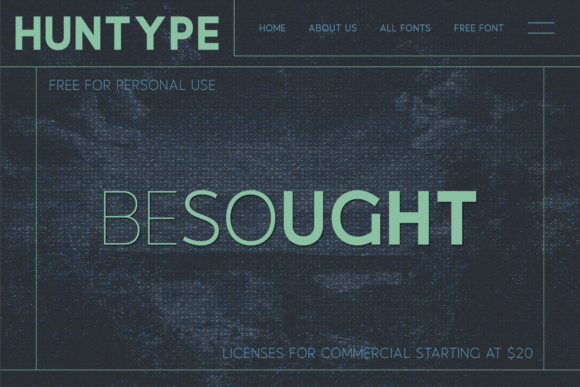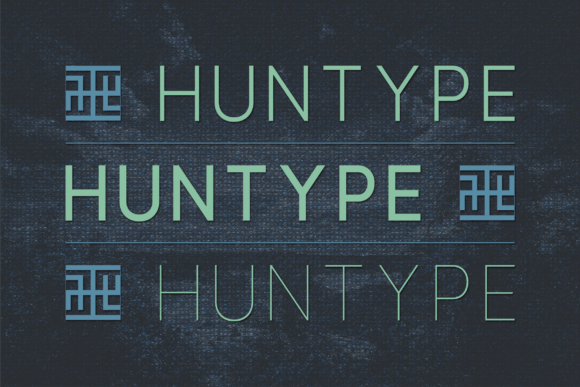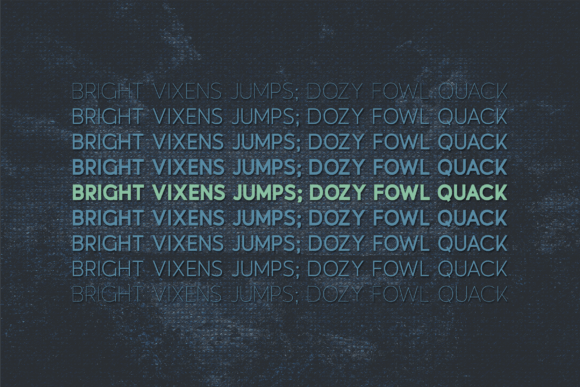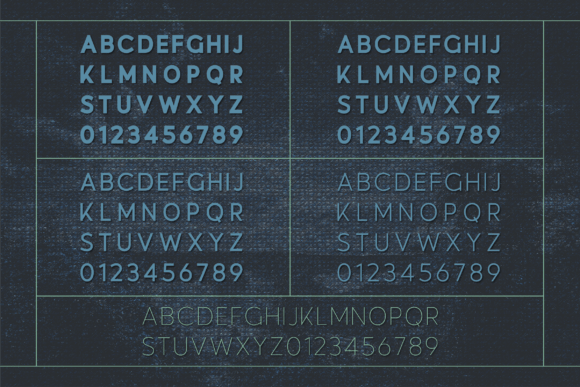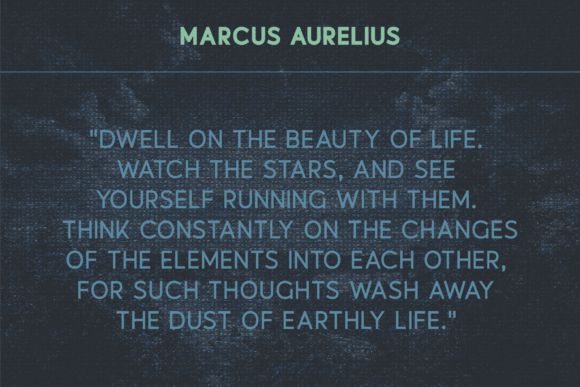
The Perfect Font for the Modern Designer
Have you ever stared at a blank page, trying to find the perfect font to bring your design to life? You’ve scrolled through endless options, but nothing seems quite right. That’s where Besought Font comes in – a modern and versatile font family that’s designed to elevate your work.
Besought Font is a masterful blend of clean geometric forms and subtle sophistication, making it the perfect choice for branding, logos, headlines, and more. With its adaptable style and range of weights, this font family is incredibly versatile, allowing you to explore a wide array of applications and lend a modern and professional feel to any endeavor.
Whether you’re a seasoned designer or just starting out, Besought Font is a valuable addition to your toolkit. Its clean, geometric aesthetic makes it particularly suitable for projects requiring a contemporary and sophisticated look, and its adaptability ensures that it will remain a trusted companion for years to come.
Besought Font Key Features
- Unique Characteristics: Besought Font features a unique blend of modern and traditional design elements, with intricate details and subtle texture, giving it a distinctive and elegant appearance.
- Font Weight and Style: Besought Font is available in multiple weights, from Light to Extra Bold, and includes various styles, such as Regular, Italic, Bold, and Bold Italic, allowing for a range of design possibilities.
- Scalability: The font is designed to be highly scalable, ensuring that it retains its quality and integrity even at very large or very small sizes, making it ideal for use in a variety of applications, from signage to fine typography.
Besought Font Review
I recently had the chance to work with the Besought Font, and I must say it’s been an interesting experience. Here are my thoughts.
- Unique and elegant design: The Besought Font has a distinct, high-end feel to it. It’s perfect for luxury brands, upscale products, or anything that requires a touch of sophistication.
- Good legibility: The font is well-designed for both print and digital use, making it a great choice for a wide range of applications.
- Customization options: The Besought Font comes with a range of weights and styles, giving you the flexibility to choose the perfect look for your project.
- Limited character set: The Besought Font is not a full-featured font, lacking some characters and glyphs that you might need for certain languages or special characters.
- Not ideal for body text: While the Besought Font is great for headings and titles, it may not be the best choice for large blocks of body text due to its elegance and limited legibility at smaller sizes.
Overall, I think the Besought Font is a solid choice for projects that require a touch of luxury and sophistication. However, it may not be the best fit for every project, especially those that require a lot of body text or a full character set.
Tips for Getting the Most Out of Besought Font
Use Besought font for titles, headings, and emphasis to add a touch of elegance to your design.
Combine Besought font with other fonts for a unique and visually appealing typography.
Experiment with different font sizes and colors to create a cohesive design.
Wedding invitations, event branding, and luxury packaging designs.
Formal business reports, presentations, and marketing materials.
Book covers, magazine titles, and newspaper headlines.
What is the recommended font size for optimal readability with the Besought Font?
The recommended font size for optimal readability with the Besought Font is between 12pt and 24pt, depending on the application and intended use. For digital applications, a minimum font size of 14pt is recommended to ensure clear readability on various screen resolutions.